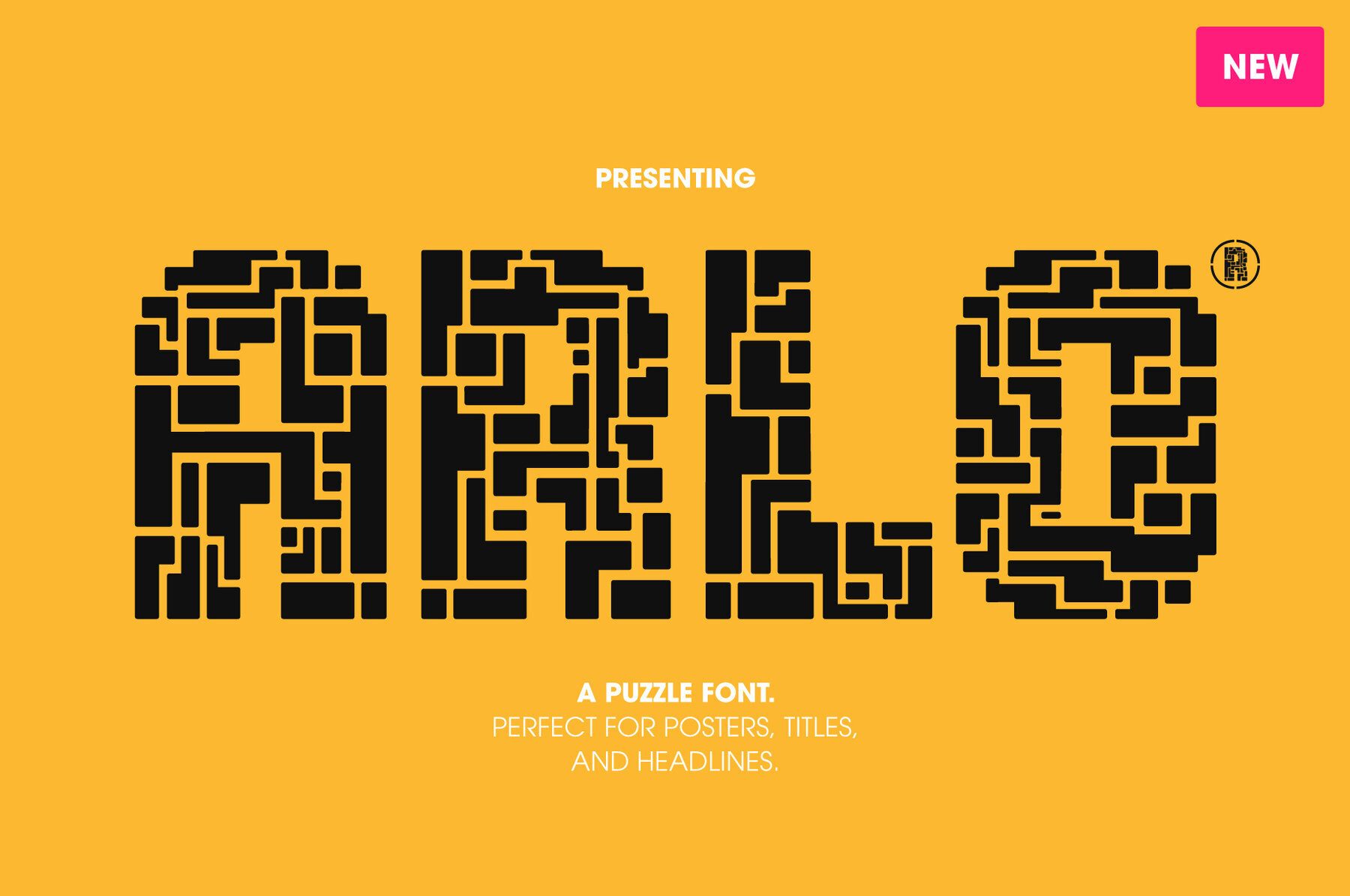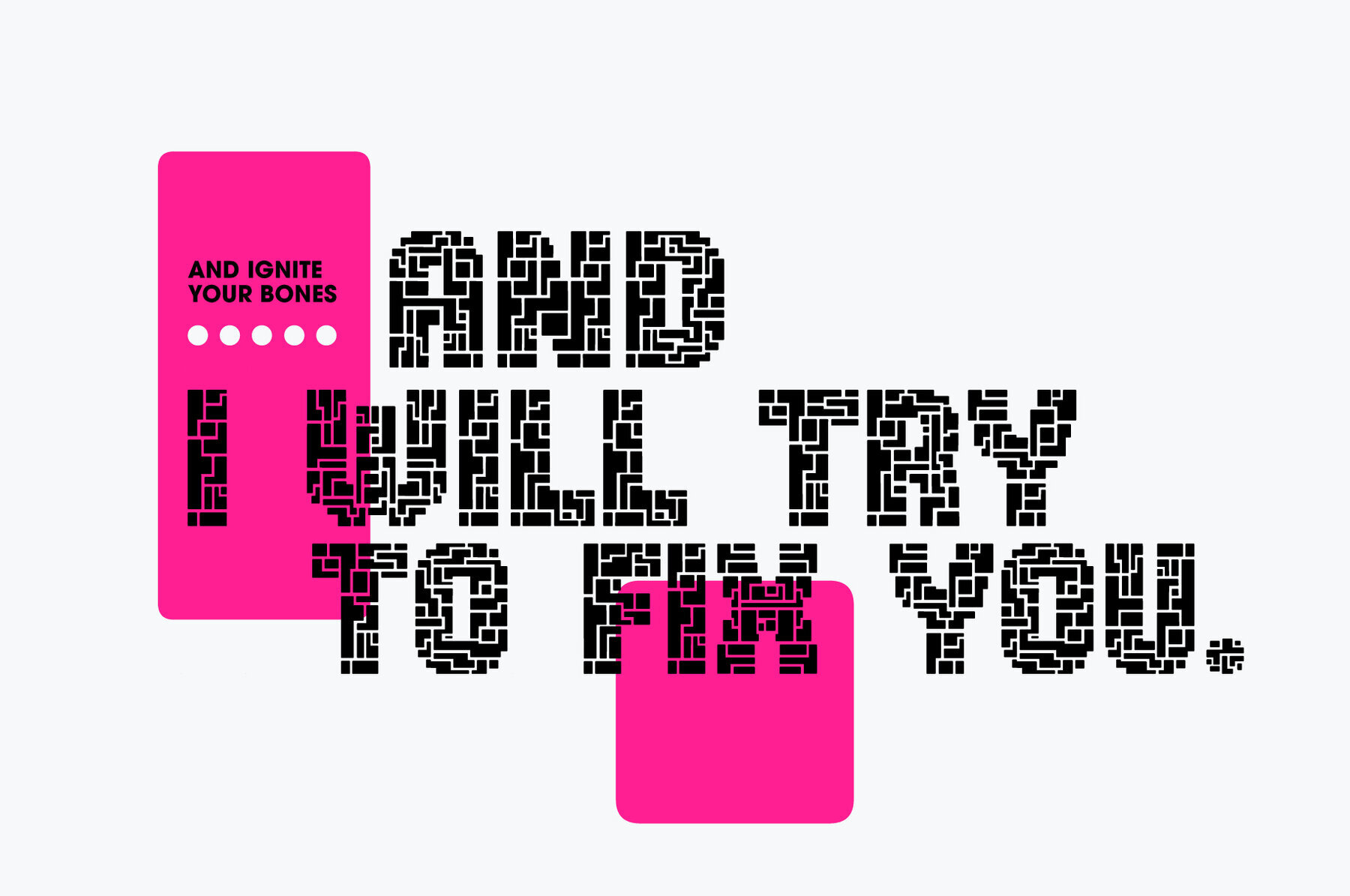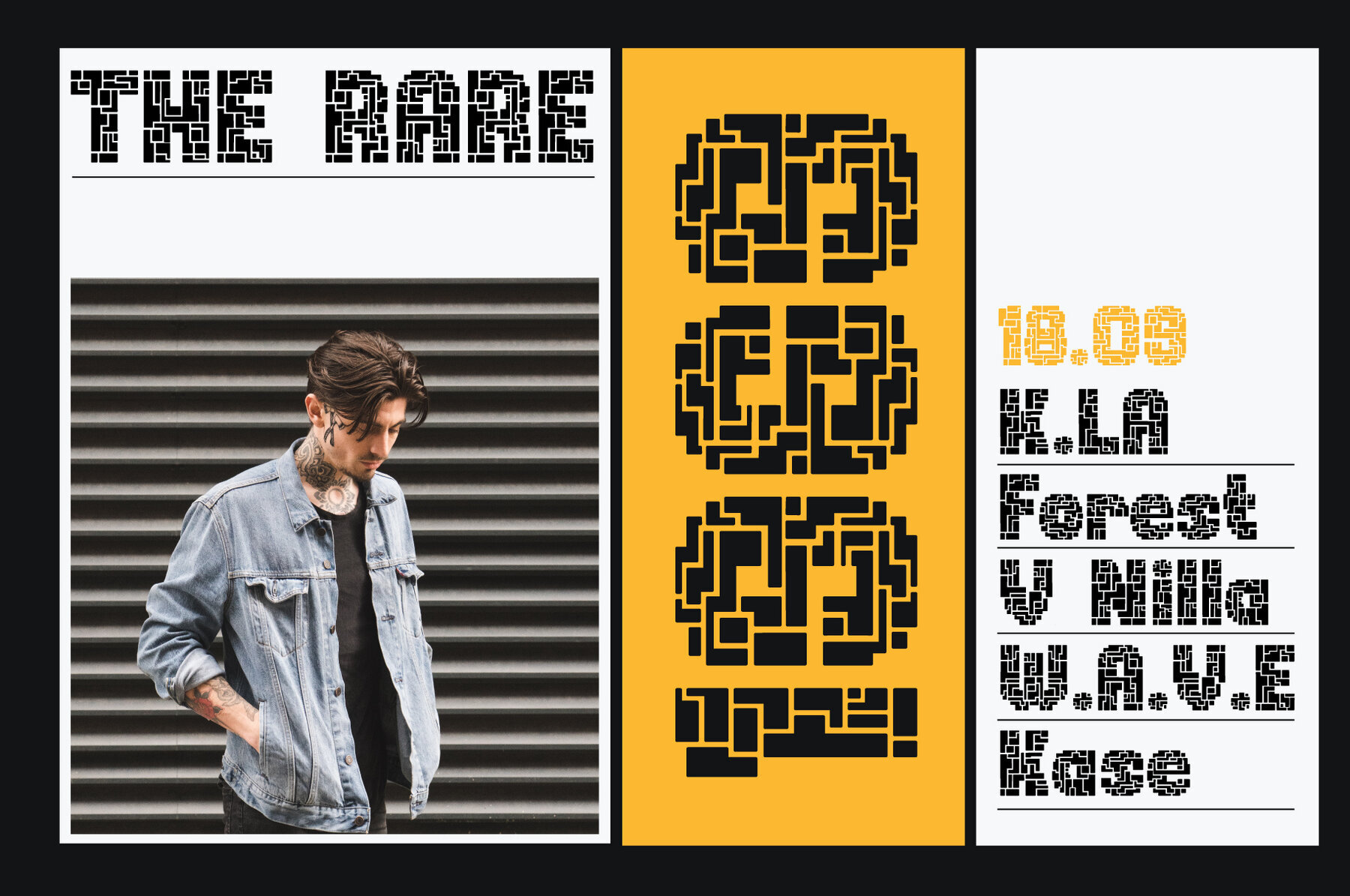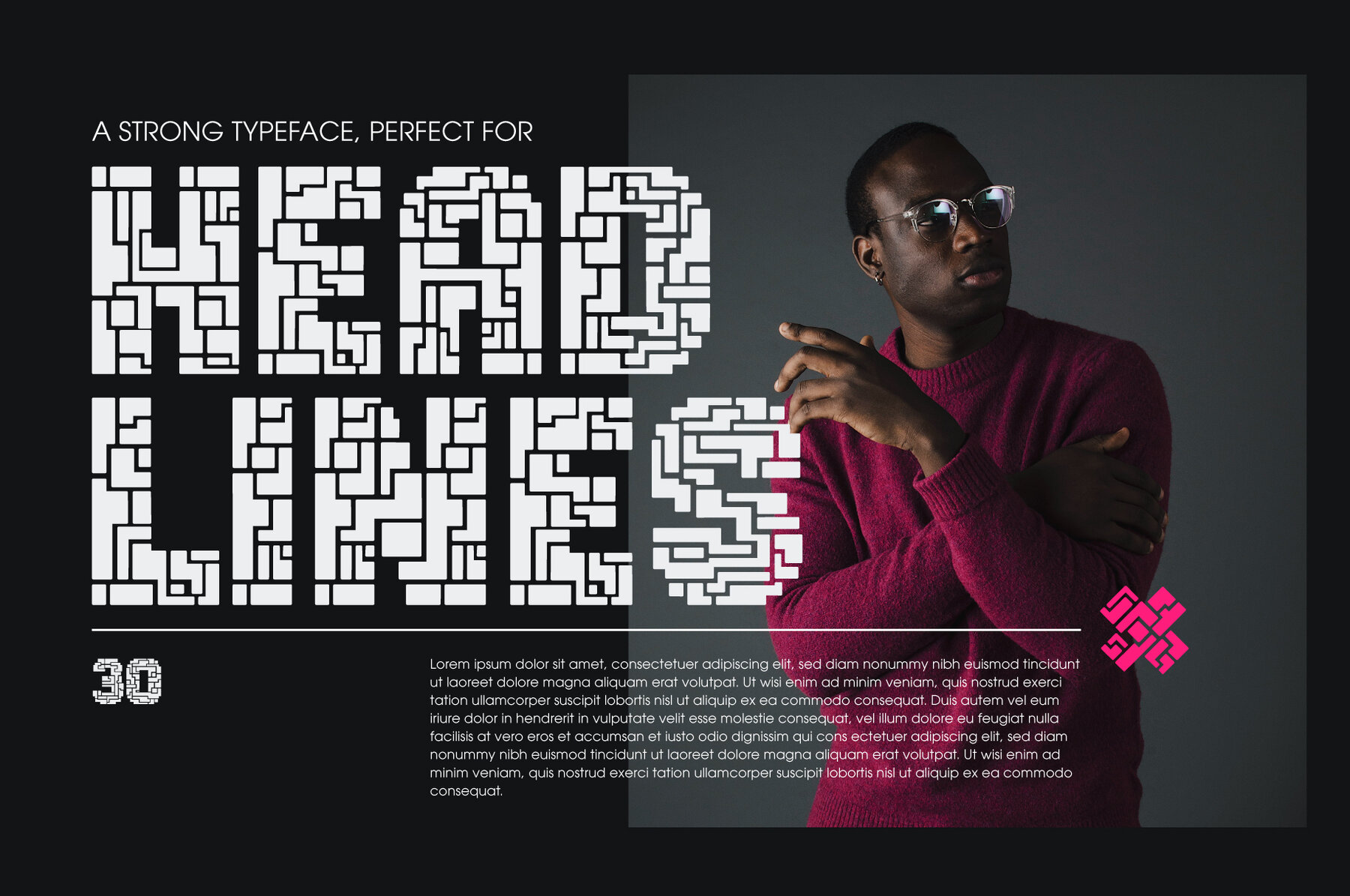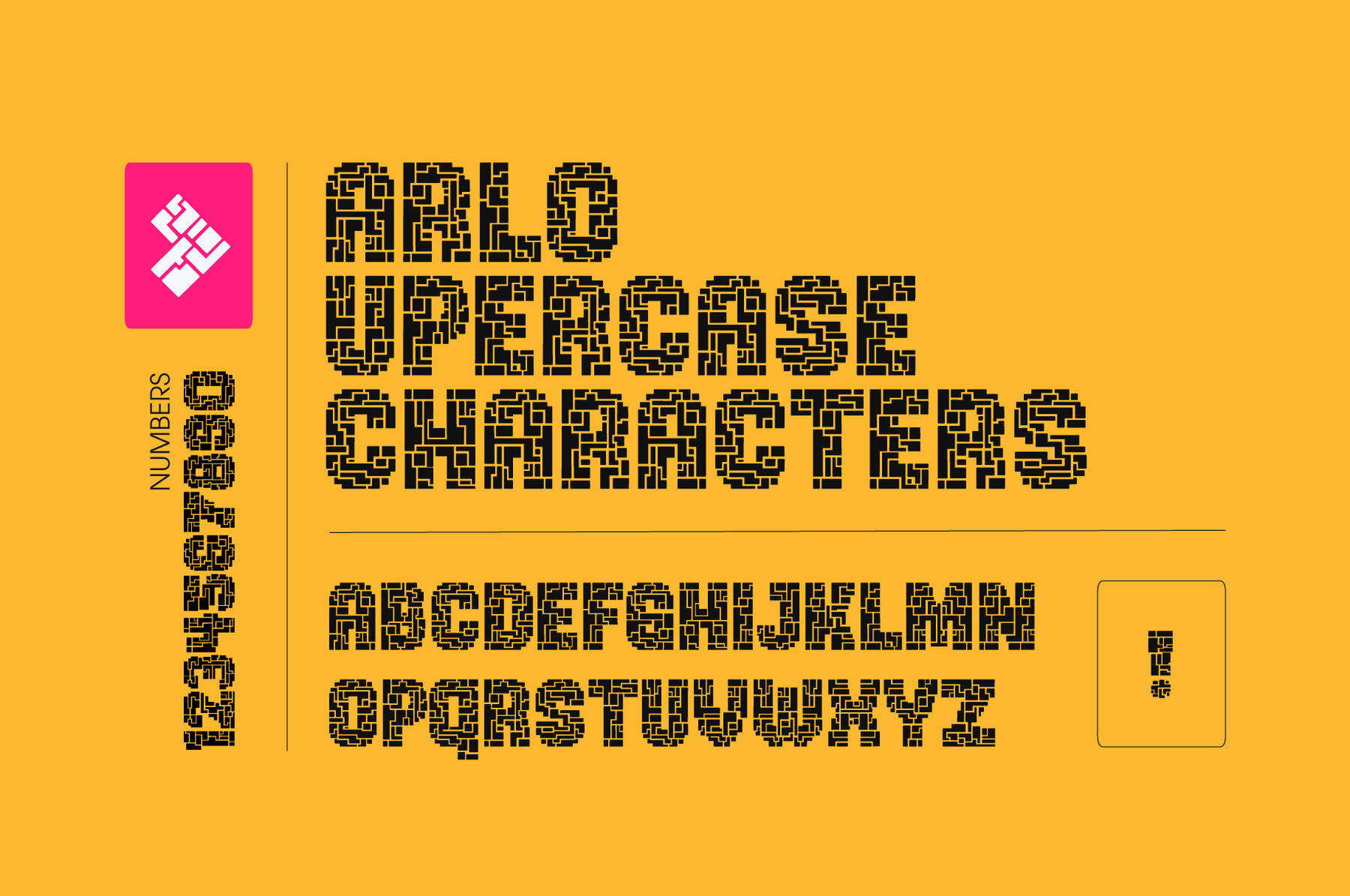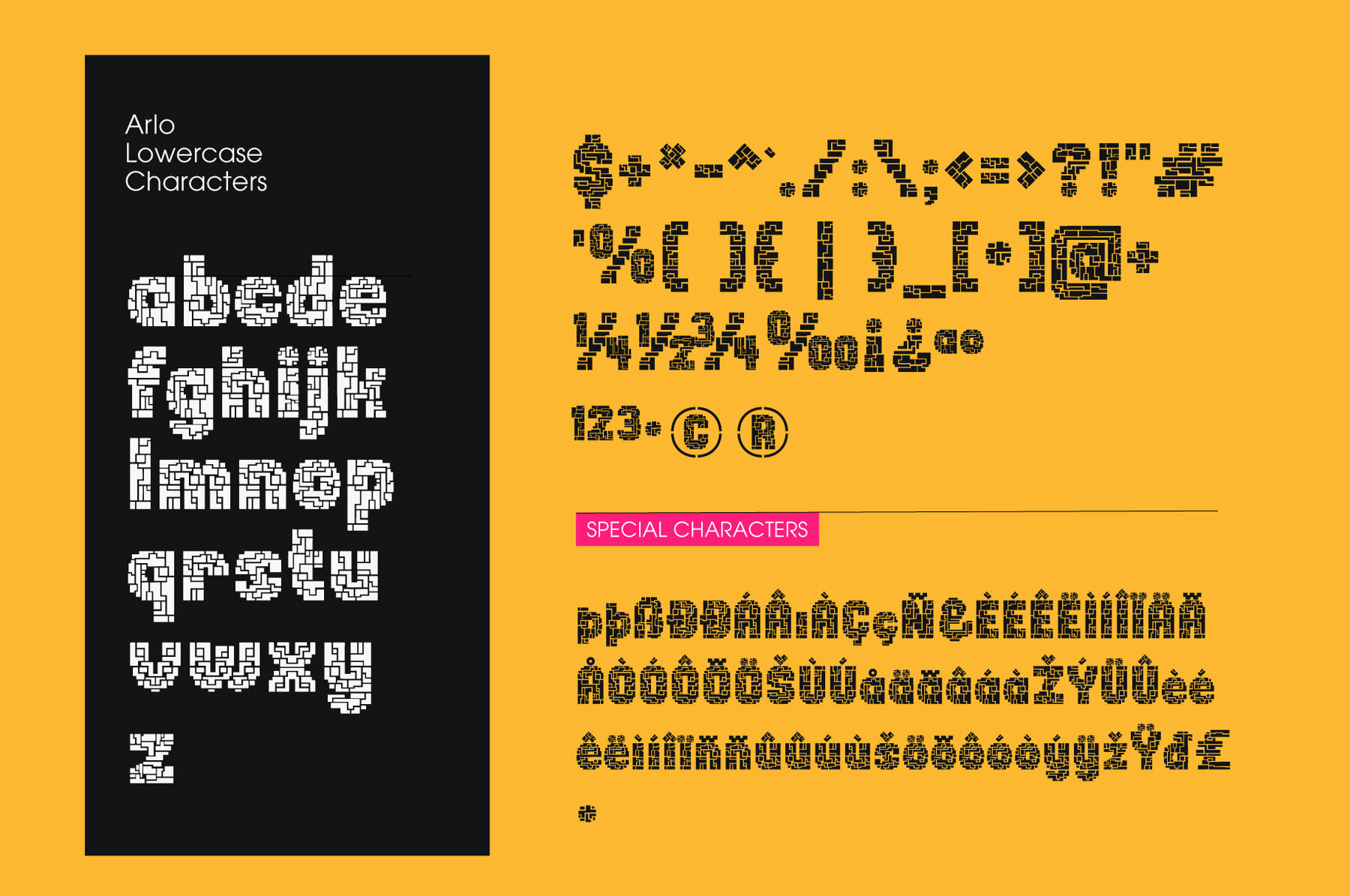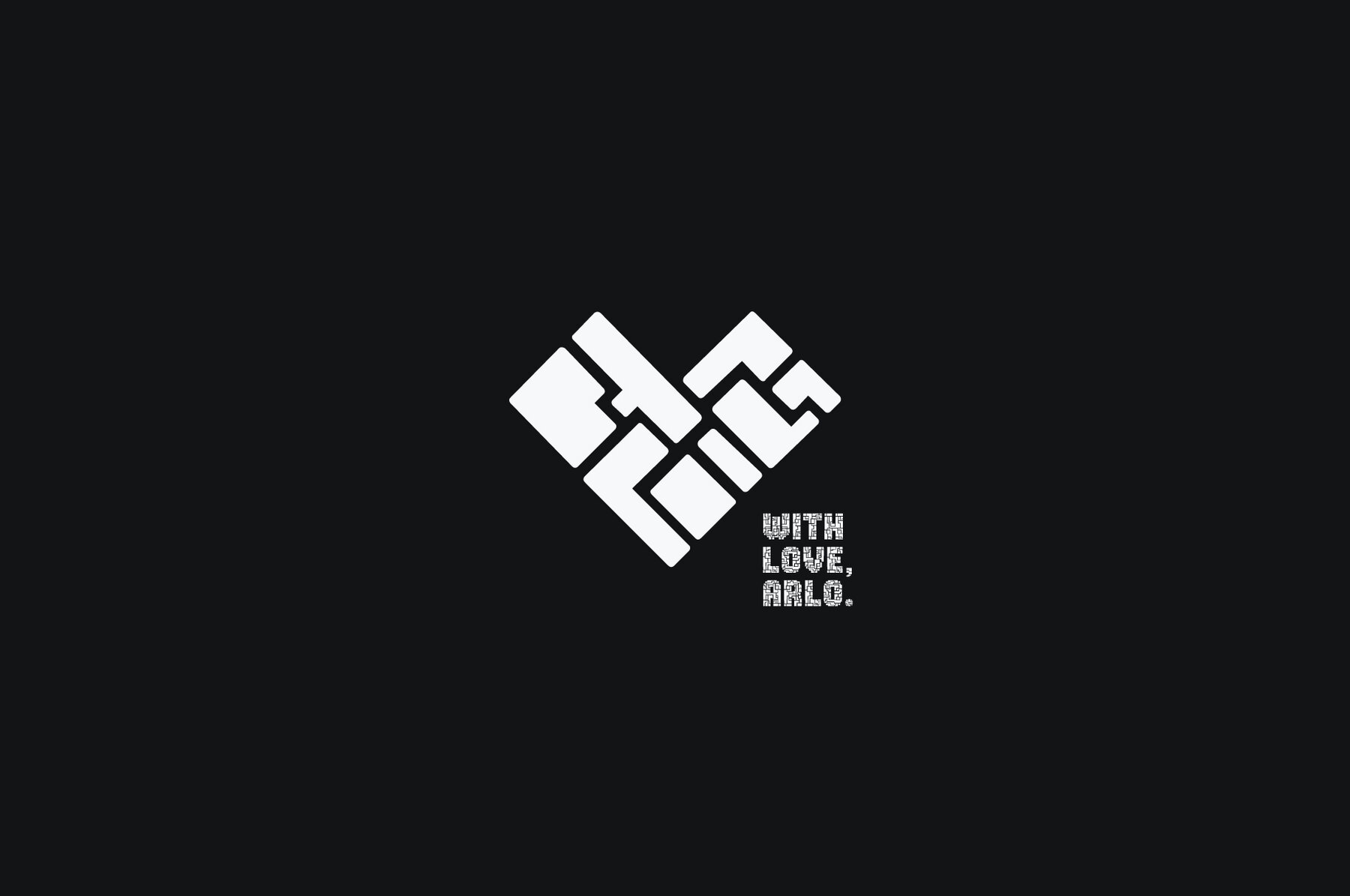
Arlo Font
Arlo Regular
Arlo is a unique puzzle inspired typeface. Each letter is distinctive and can stand on it’s own, that’s what makes Arlo truly unique. The viewer is bound to get lost inside the puzzle while looking at your design. This is perfect for attention grabbing posters, logos, headlines, apparel, packaging, and virtually anything you can imagine. This is also multilingual font with upper and lowercase letters.